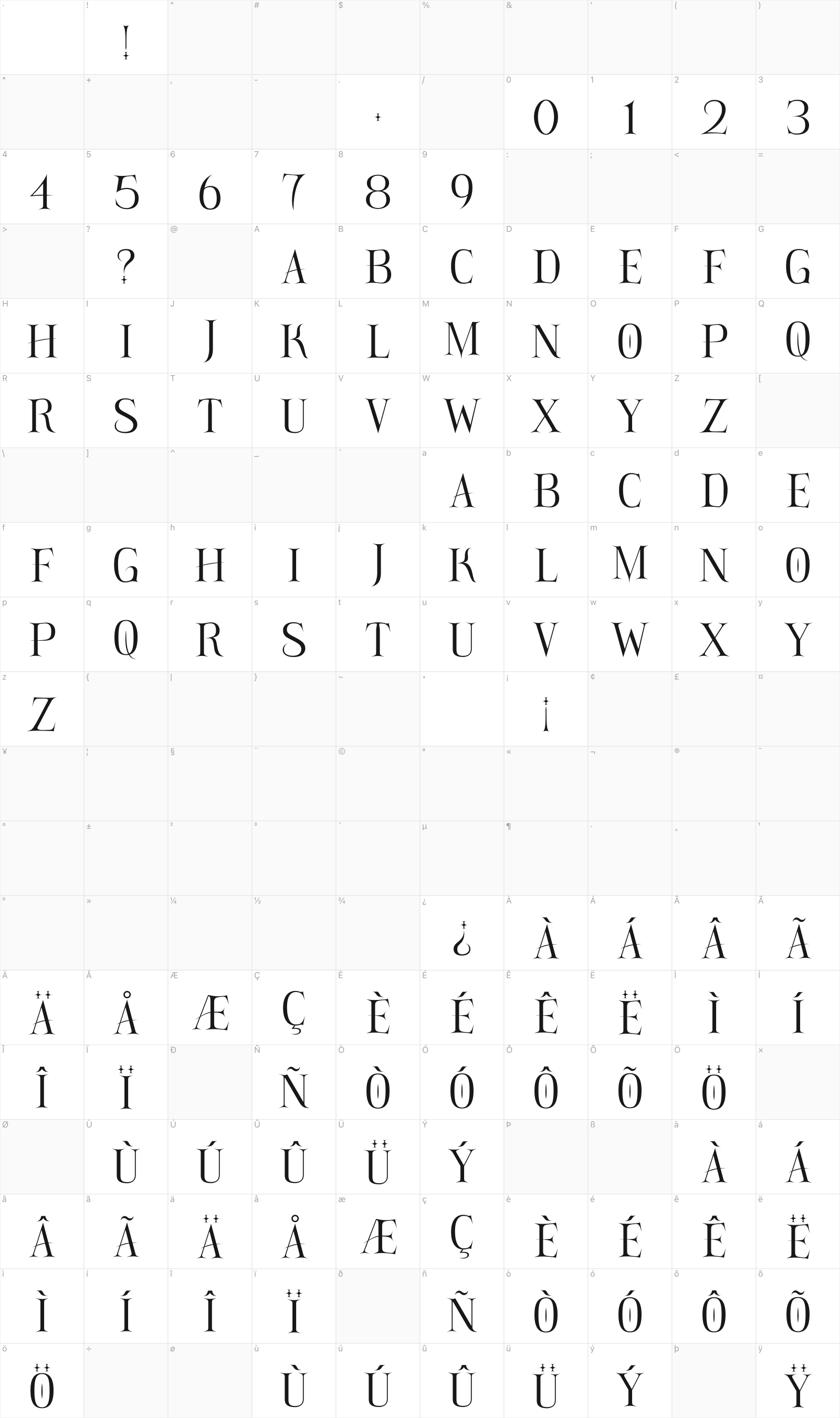
Knive
Knive is a high-contrast modern serif in the Didone tradition, with extreme tension between its razor-thin hairlines and bold vertical strokes. Tall, condensed proportions and nearly unbracketed serifs give it a sharp, architectural quality. It lives comfortably in fashion editorial, luxury branding, and anywhere that demands elegant severity at large sizes.